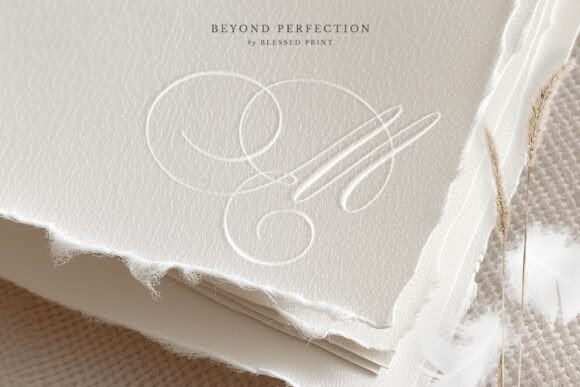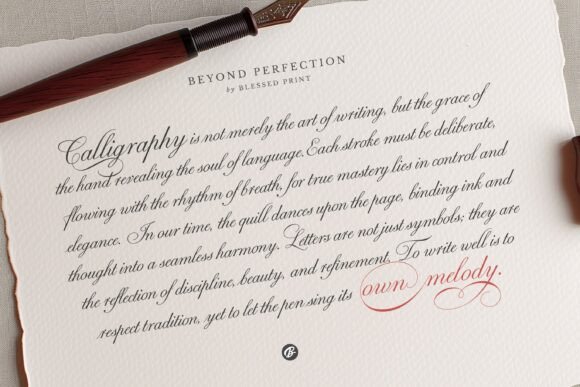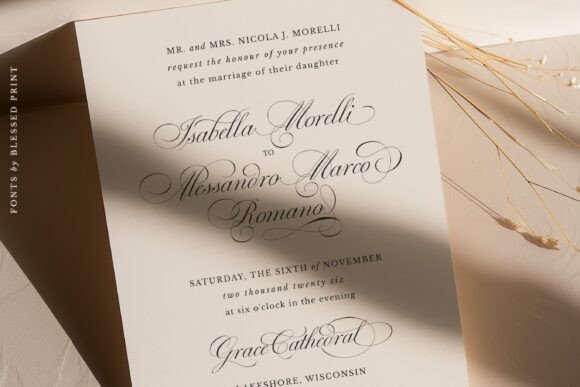
Beyond Perfection Font
Beyond Perfection is a refined script font inspired by Charles Snell’s handwriting. Designed for those who appreciate classic calligraphy, it features elegant letterforms, seamless connections, and over 400 alternates, swashes, and ligatures. Perfect for wedding invitations, luxury branding, and formal typography.